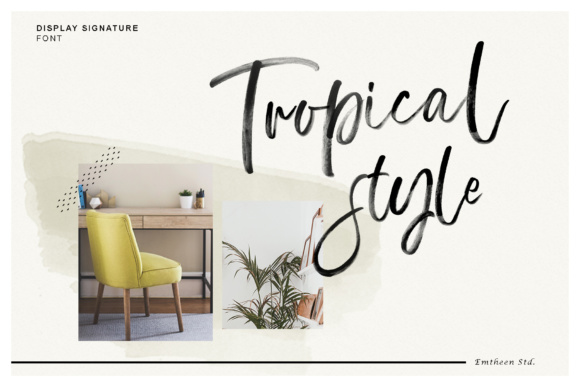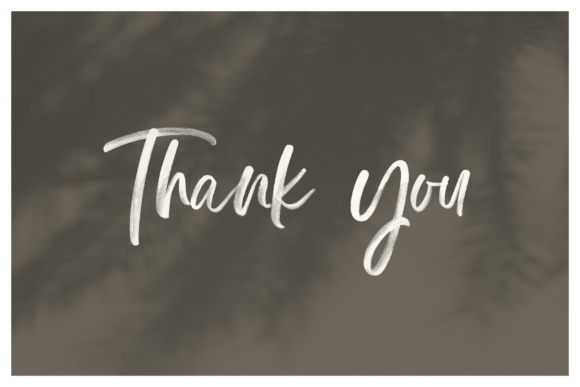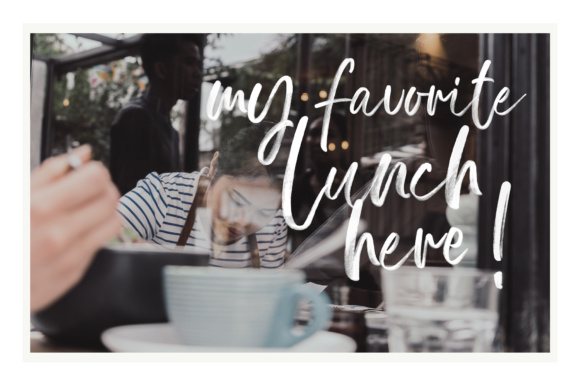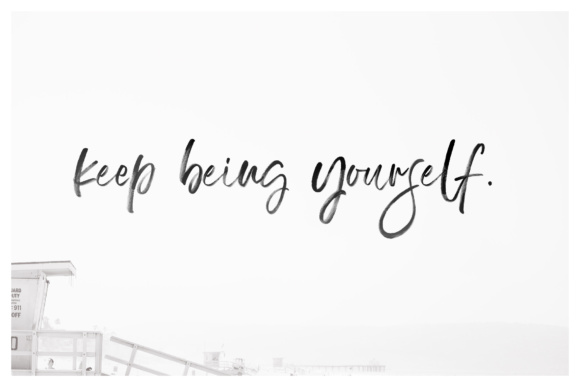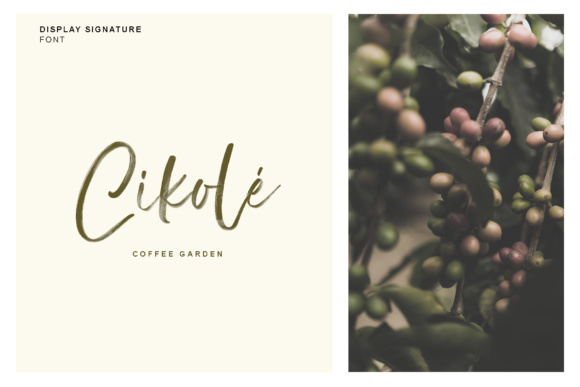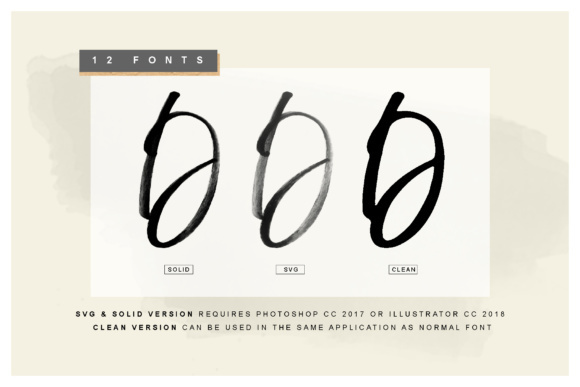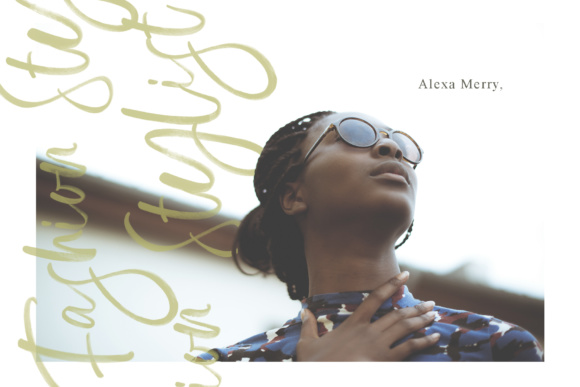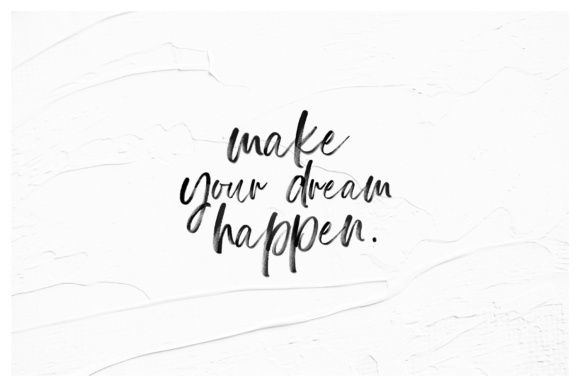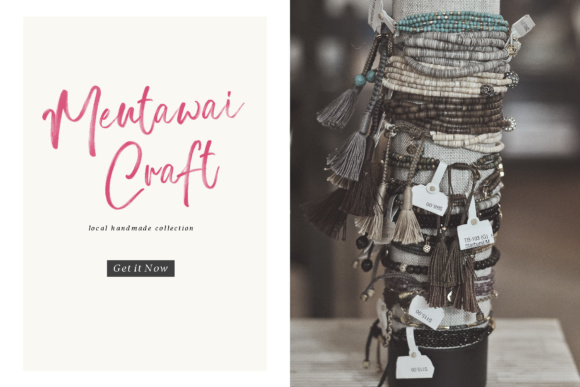
About Display Font
The Display Signature is a versatile SVG font that features a hand-lettering style created with a brush, giving it a realistic and authentic look. This font offers three different styles to choose from: SVG, solid, and clean, allowing you to customize your design based on your preferences and project requirements.
The SVG style of The Display Signature preserves the hand-painted texture and brush strokes, providing a unique and organic appearance. It adds depth and dimension to your typography, giving it a more lifelike and artistic feel. The SVG style is perfect for designs that aim to capture a natural and handmade look.
If you prefer a more solid and uniform look, the solid style of The Display Signature is a great option. It retains the overall hand-lettering aesthetic but without the texture and variations of the SVG style. This style offers a clean and consistent appearance, making it suitable for designs that require a more polished and refined look.
For projects that require a cleaner and smoother presentation, the clean style of The Display Signature is ideal. It removes the brush texture and provides a crisp and neat appearance. This style is suitable for designs that need a more minimalistic and contemporary approach, while still retaining the essence of hand-lettering.
Whether you choose the SVG, solid, or clean style of The Display Signature, you can expect a font that adds a touch of authenticity and personality to your designs. Its hand-lettering style creates a sense of warmth and human touch, making it suitable for a wide range of applications such as branding, logos, packaging, invitations, and more.
When working with The Display Signature, consider experimenting with different sizes, colors, and layering effects to create unique compositions that showcase its hand-lettering characteristics. It’s also worth exploring how it pairs with other fonts to create harmonious and visually appealing typography combinations.
In conclusion, The Display Signature is an SVG font with a hand-lettering style created using a brush. With its three different styles – SVG, solid, and clean – you have the flexibility to choose the look that best suits your design needs. Incorporate this font into your projects to add a realistic and artistic touch that captures the essence of hand-lettering.